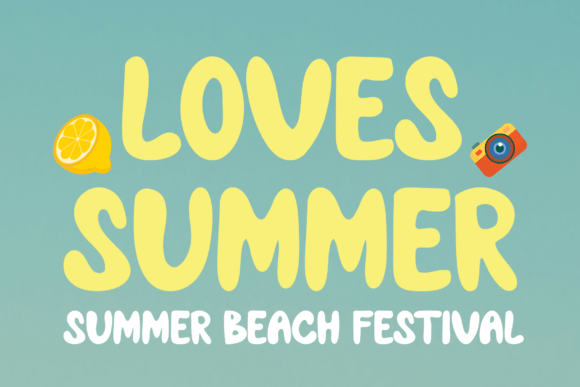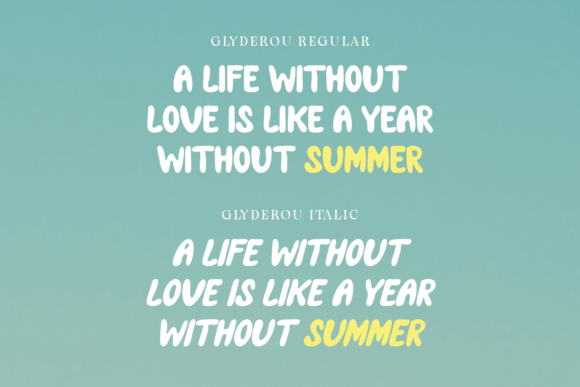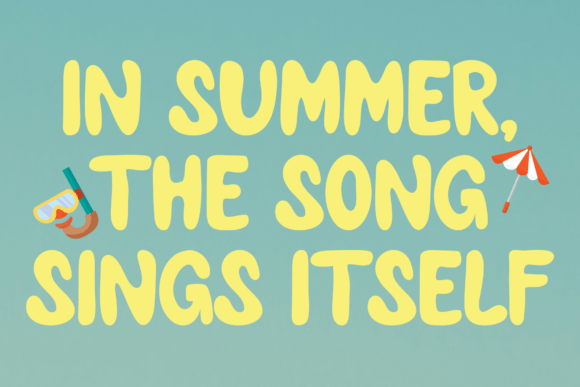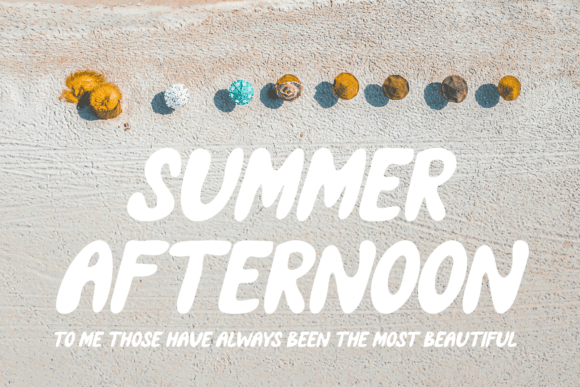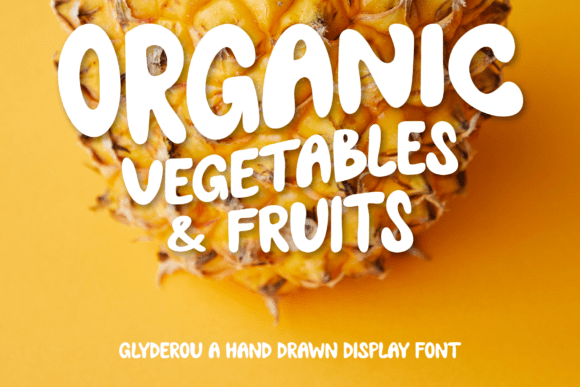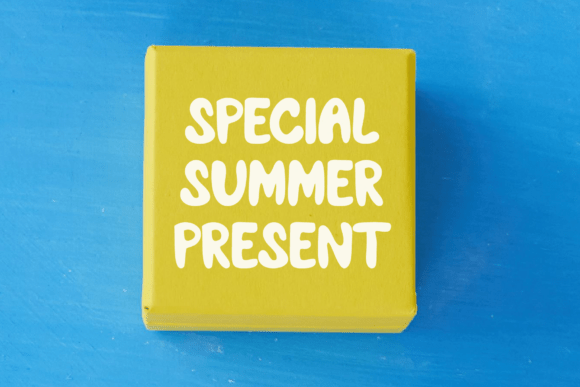
Bring a Touch of Whimsy to Your Designs with the Glyderou Font
Do you remember the joy of doodling in your notebook as a child? The feeling of creating something entirely unique and carefree? As designers, we often strive to capture that same sense of playfulness in our work, but it can be tough to convey it in a way that feels authentic. That’s where the Glyderou Font comes in – a hand-drawn display font that embodies the warmth and character of a child’s handwriting.
This delightful font is perfect for designers looking to add a personal touch to their projects. With its rounded curves and slightly irregular strokes, Glyderou brings a cheerful, friendly feel that’s ideal for kids’ books, product packaging, and creative branding. Its organic forms make it suitable for both digital and print applications, and its hand-drawn style ensures that your designs stand out from the crowd.
Glyderou Font Key Features
• Font Family: Glyderou is a modern sans-serif font family designed for digital use.
• Unique Characteristics: Features a unique blend of modern and geometric elements, with clean lines, rounded corners, and subtle flair, making it ideal for modern branding and digital design.
Glyderou Font Review
Glyderou is a visually striking font that’s perfect for making a bold statement in your designs. ✨ Its unique blend of futuristic and organic elements gives it a truly one-of-a-kind look that’s sure to turn heads.
Some of the things that work well with Glyderou include:
• Its versatility in application – it works well for both digital and print designs
• Its ability to convey a sense of energy and dynamism, making it perfect for titles and headings
• Its unique character set, which includes a range of special characters and ligatures
• ⚠️ The font can be quite difficult to read in smaller sizes, so it’s best to reserve it for larger headings and titles
• ⚠️ Some of the characters may not be fully supported in certain operating systems or software, which can lead to display issues
Overall, I’d say that Glyderou is a great choice for designers who want to add some visual excitement to their work. With its unique look and versatility, it’s definitely worth checking out – just be aware of its limitations and use it accordingly.
Glyderou font is ideal for:
Designing business cards and logos.
Creating eye-catching social media graphics.
Adding a touch of elegance to wedding invitations and menus.